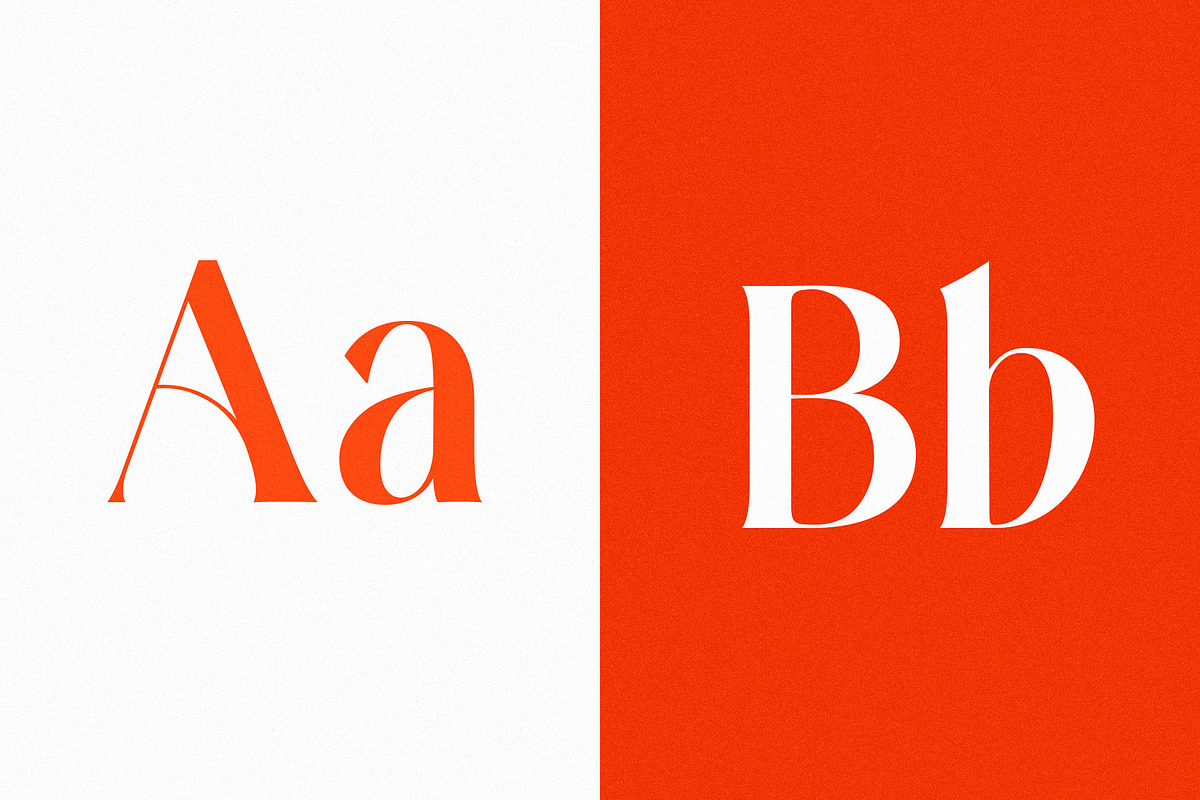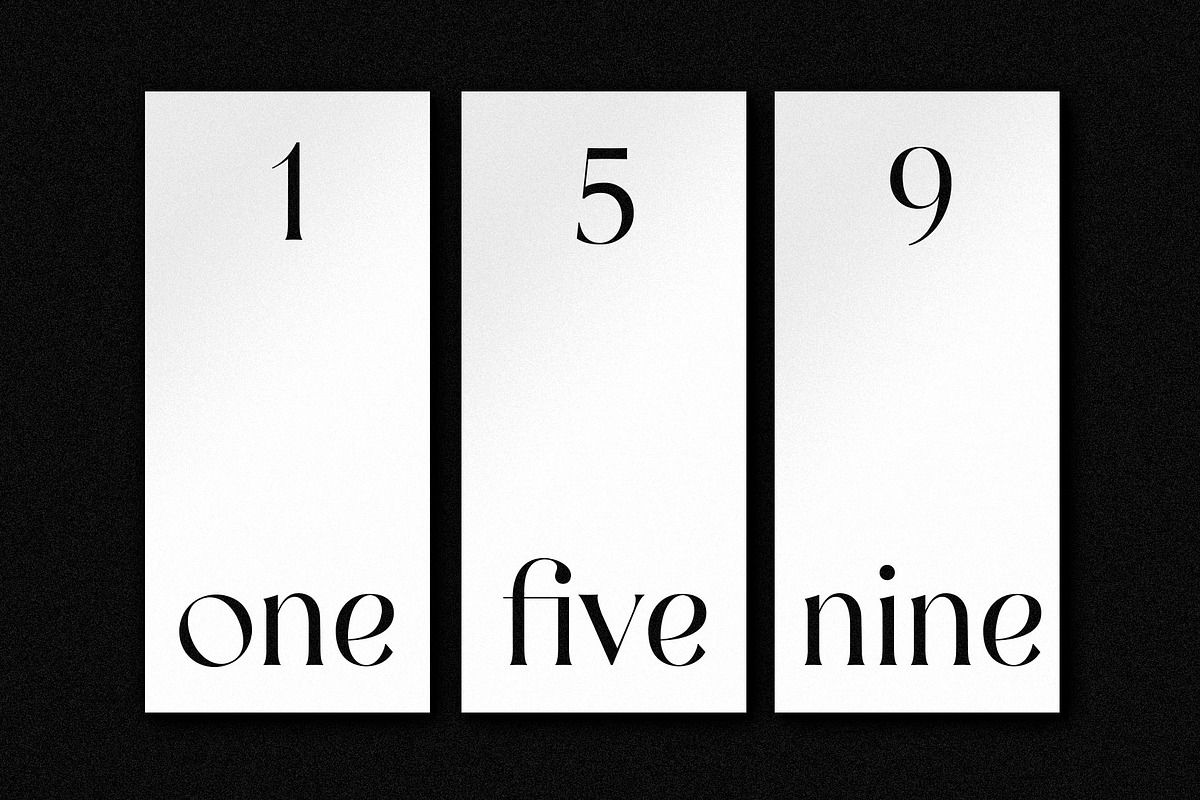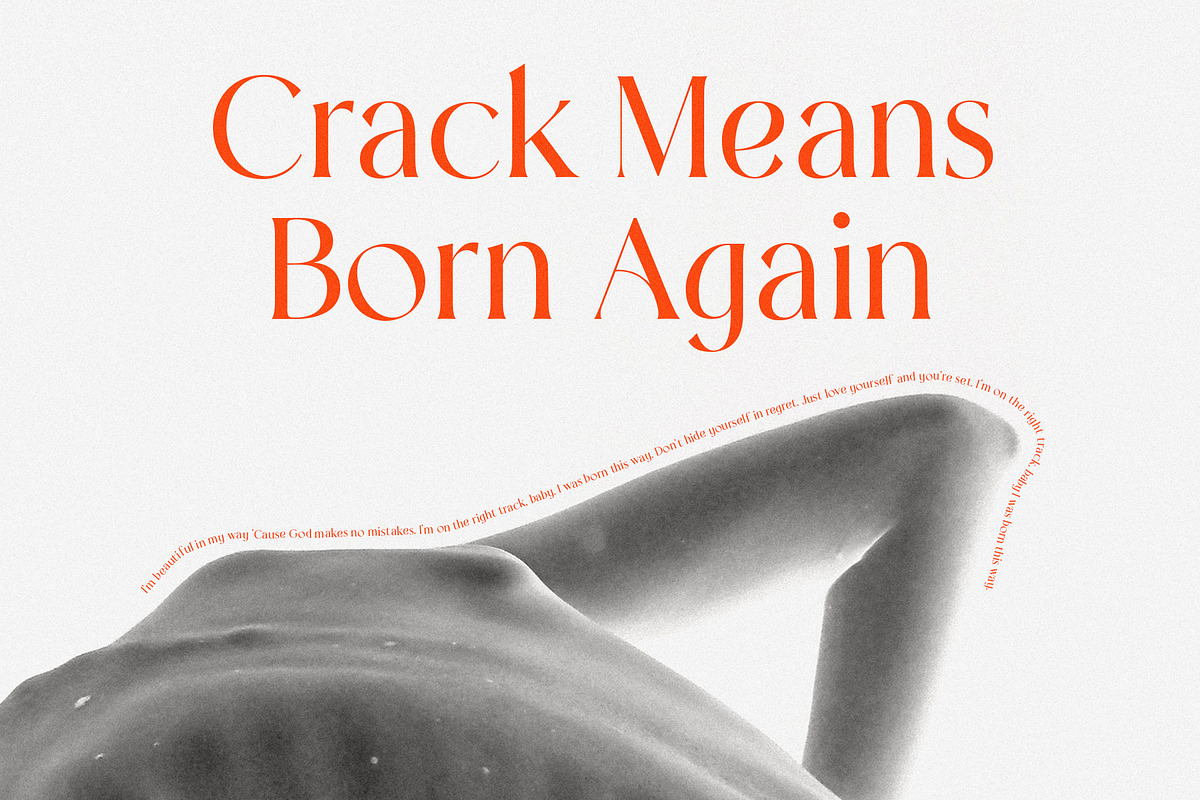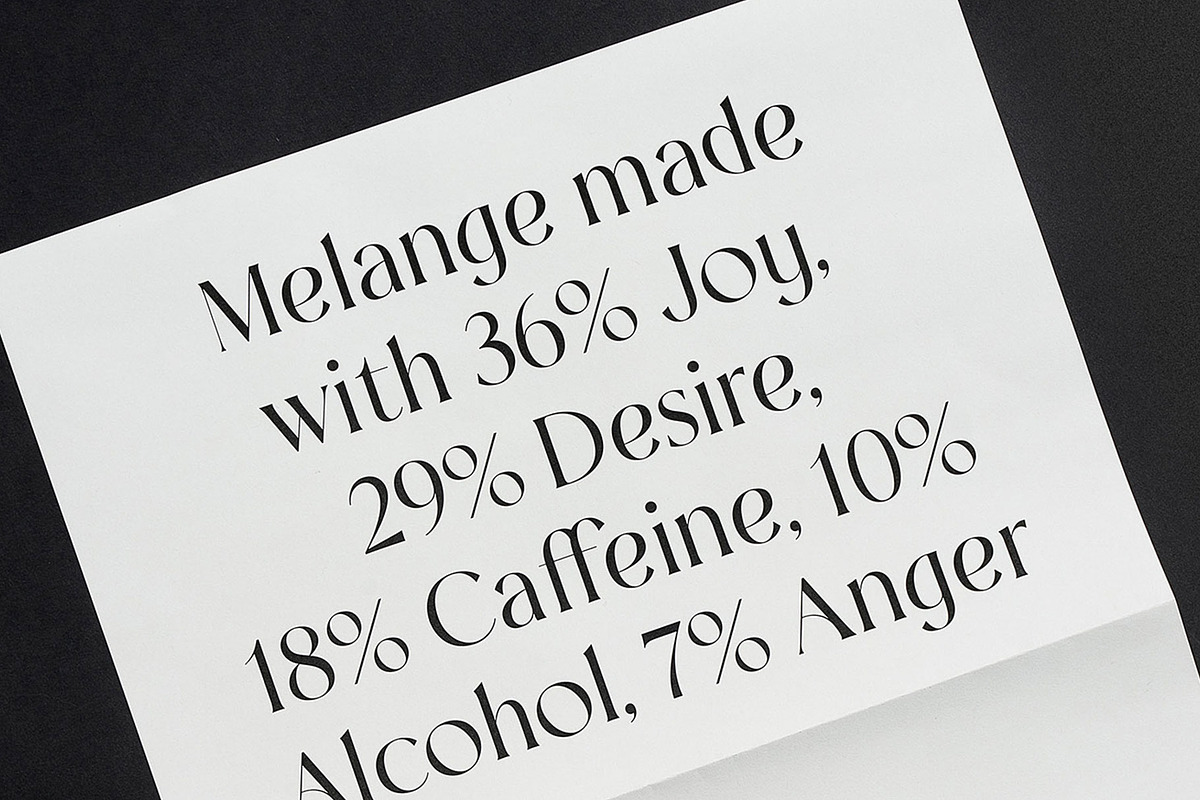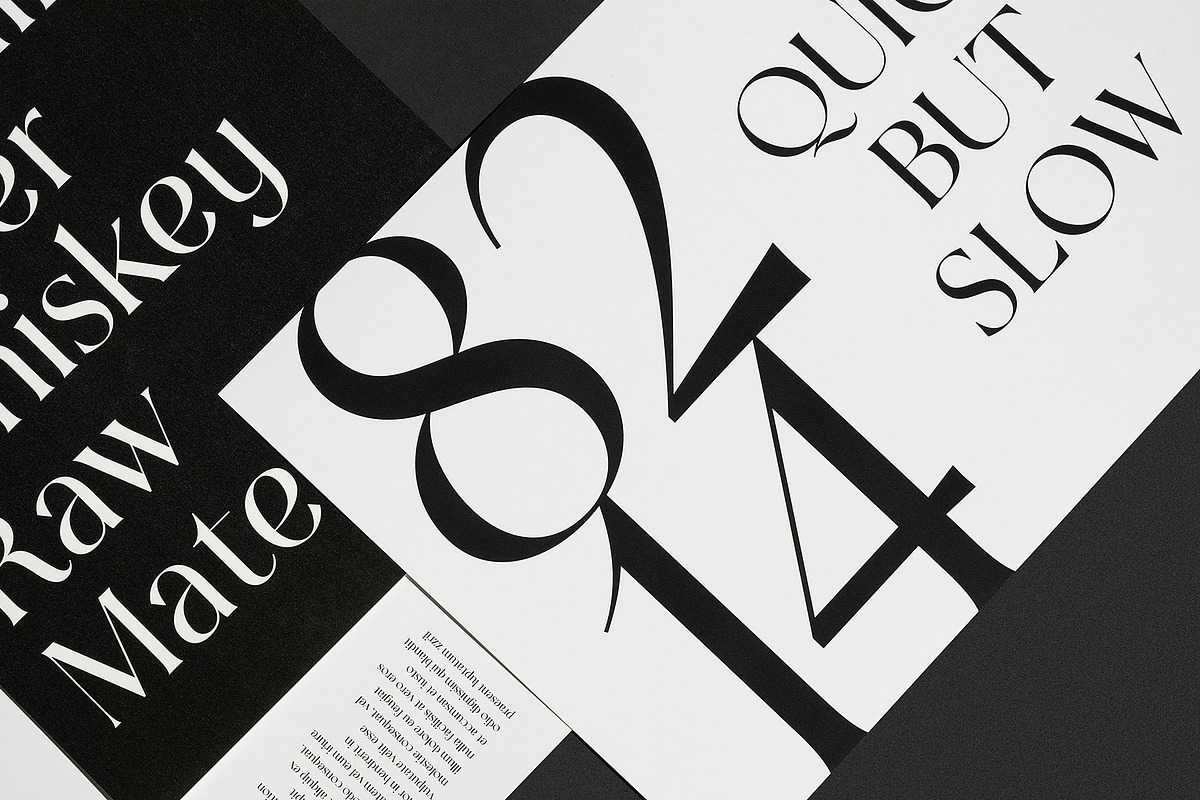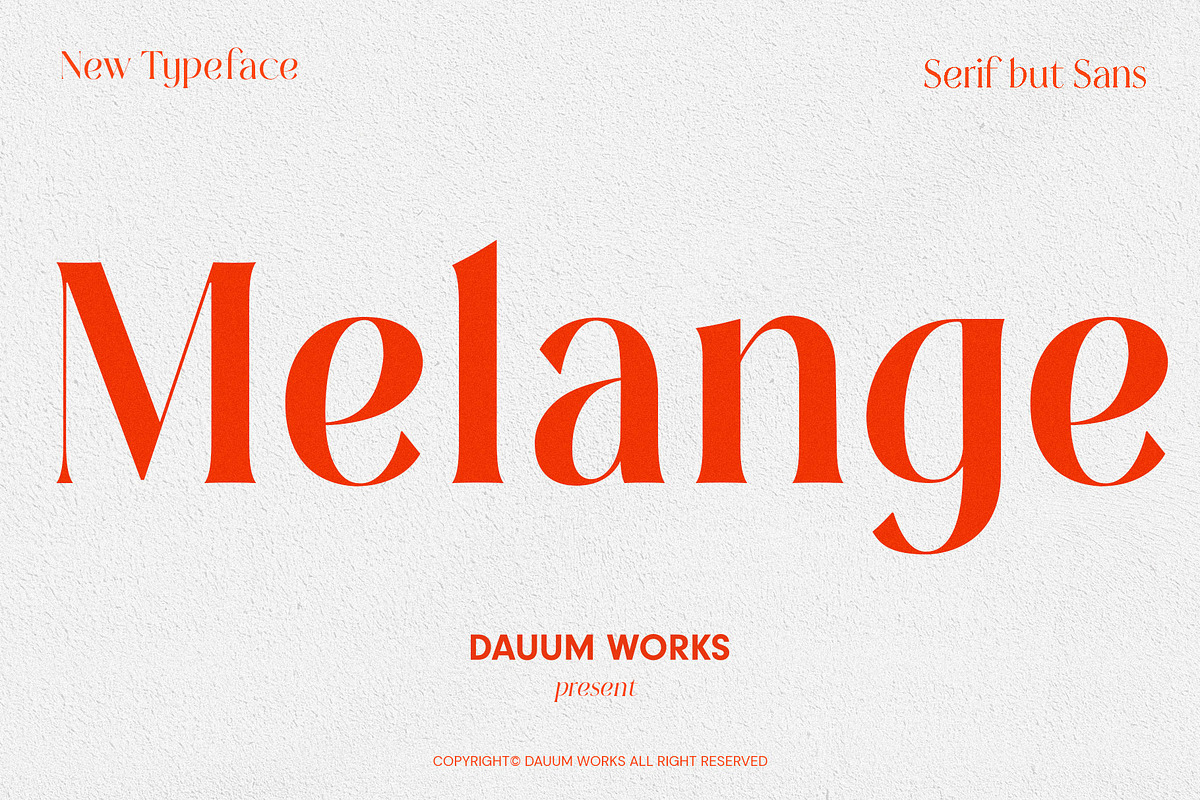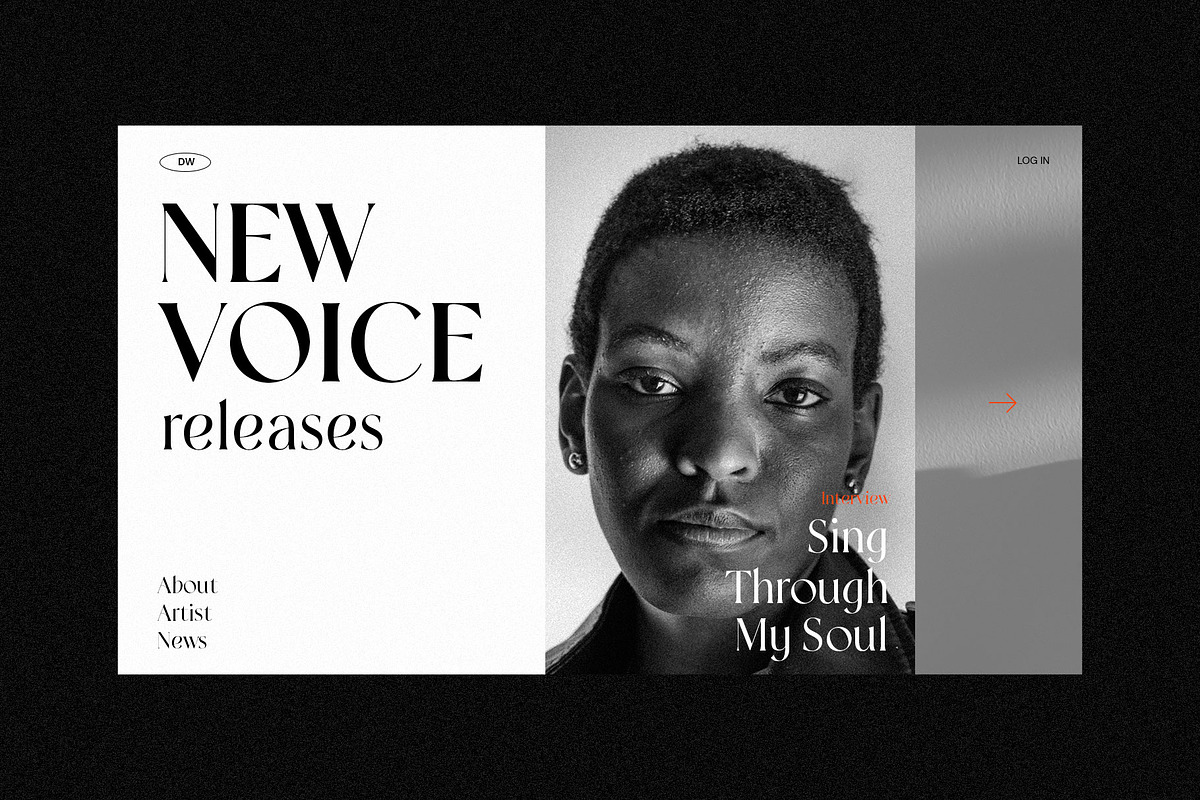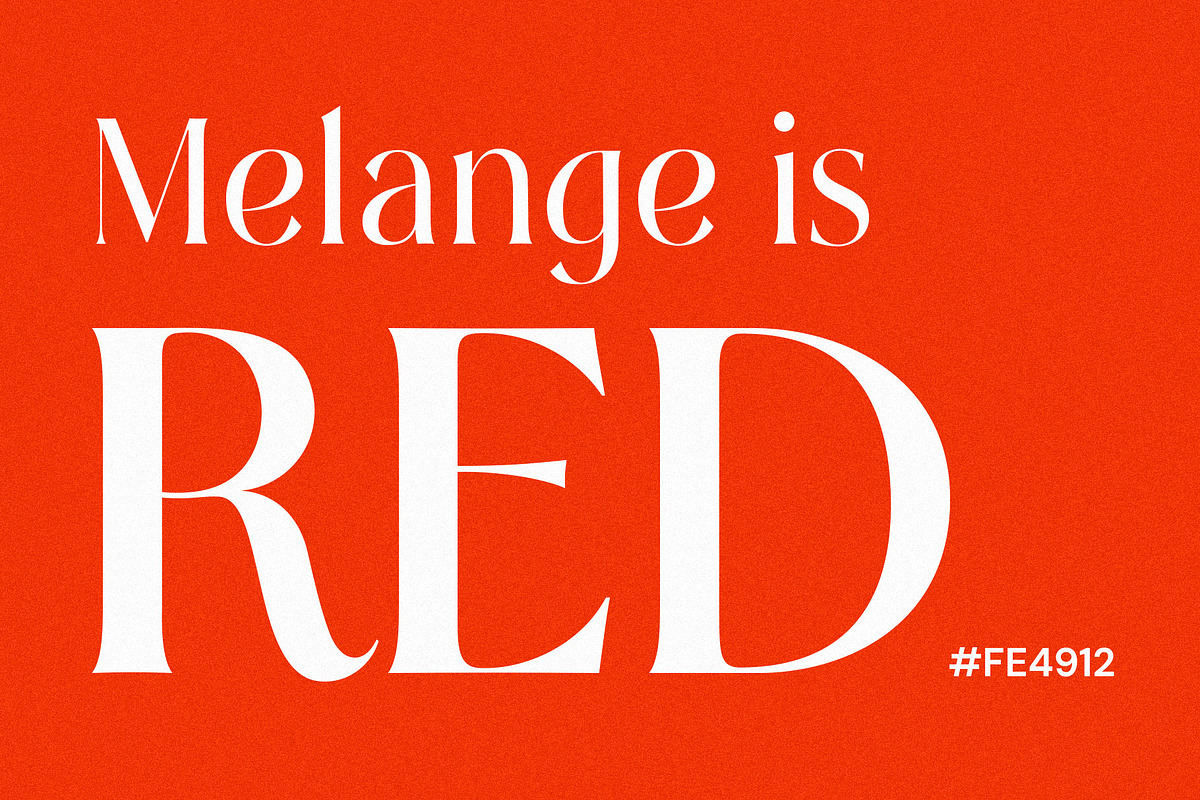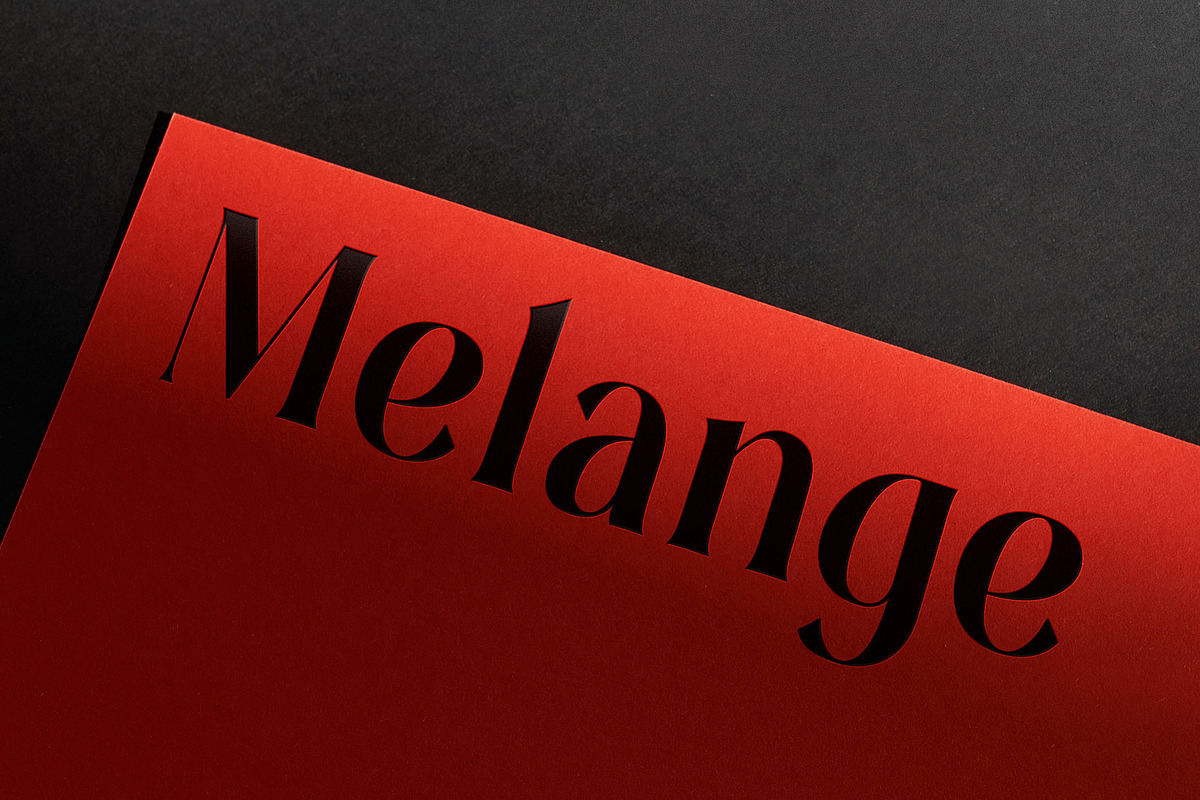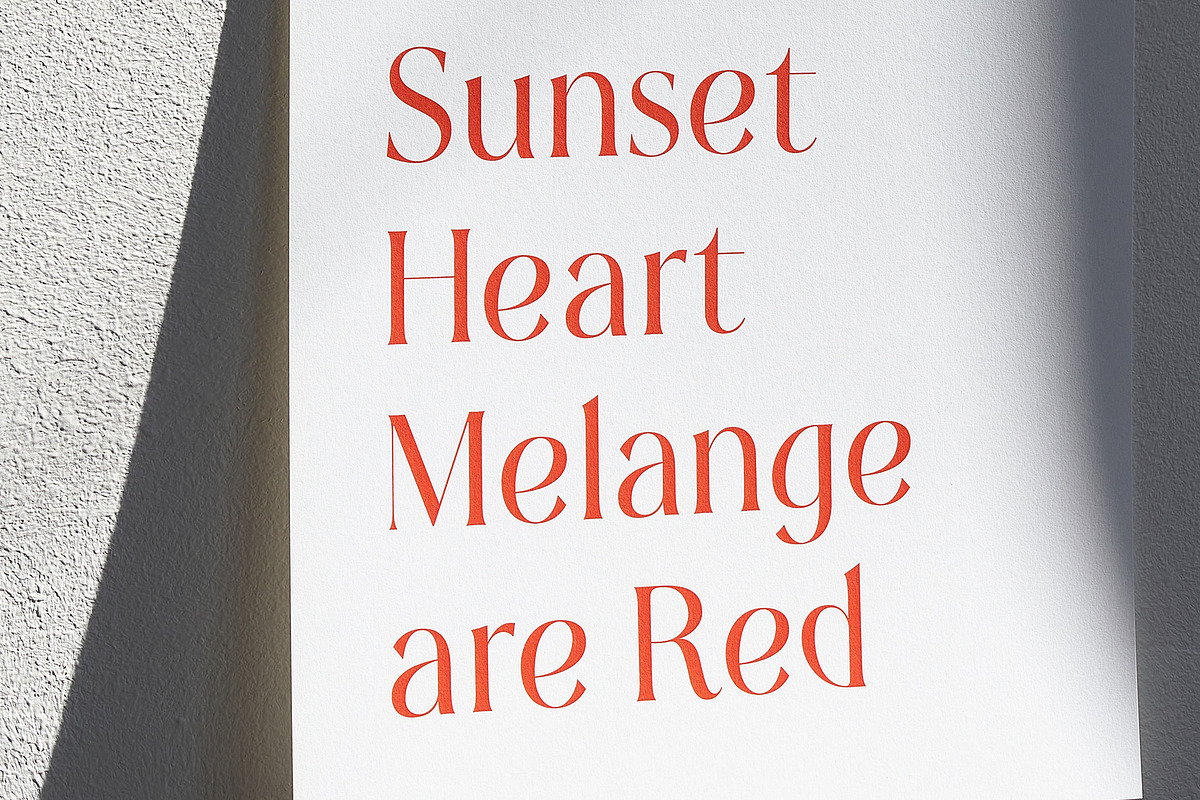
Melange - Serif Font Family
Melange means a mixture of different things and (geology) A large-scale breccia formed in the accretionary wedge over a subductional environment.
Melange is a serif typeface. But it has a detail of sans serif. It looks like a mixture of different things as the name means.